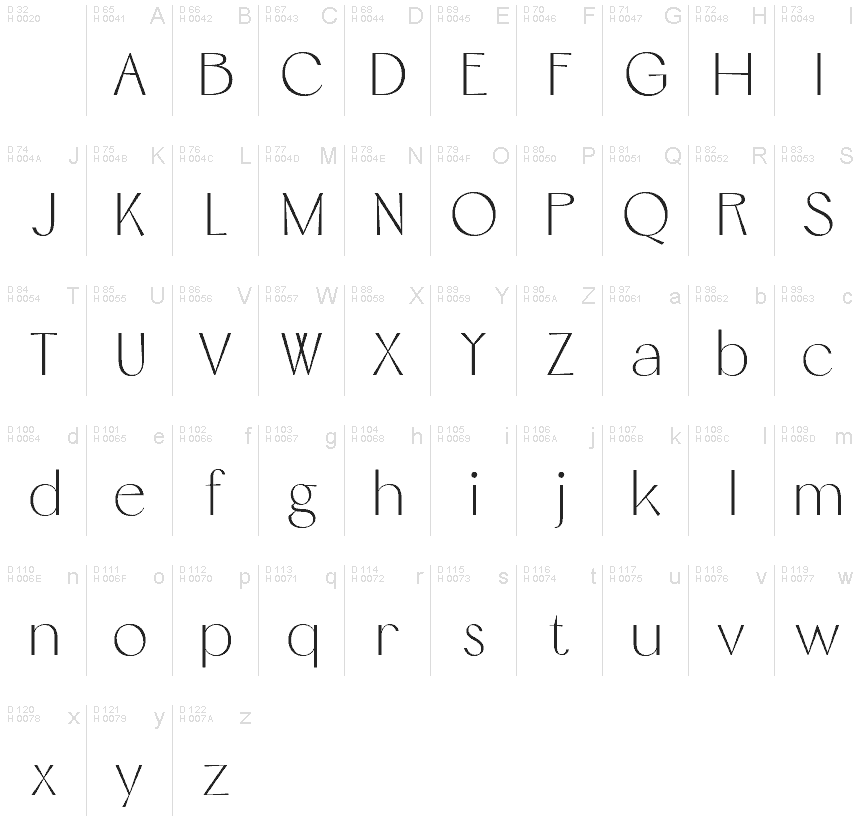
CS Resident Demo Regular
CS Resident font by Craft Supply Co. brings sophistication to your projects with its professional style. The light sans serif font is shaped with elegant letterforms resulting in classy, timeless texts. Even basic words and passages can be given this refined appearance for a new design concept that can be employed freely whenever necessary.